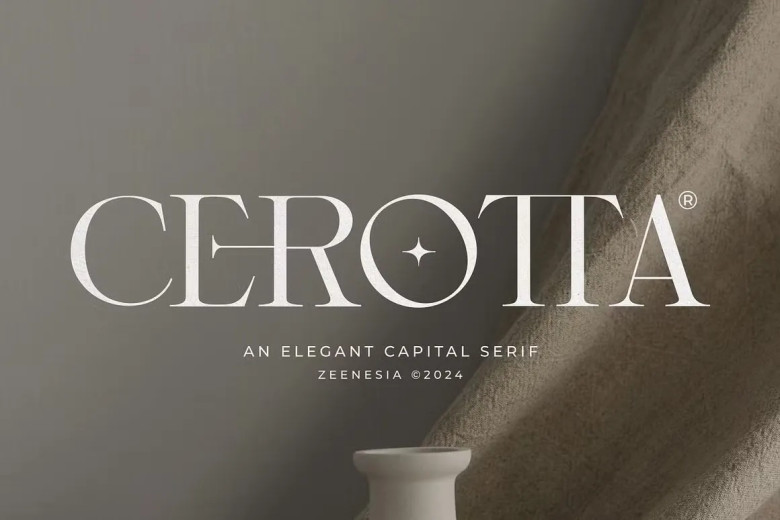
Cerotta Font
Cerotta Font is a classic serif font with romantic overtones. I used natural ligatures to craft an elegant font that can add visual interest to invitations or posters; perfect for wedding invitations! Logotypes, branding products, greeting cards often utilize Cerotta using PUA as its encoder so as to quickly access all glyphs and Swashes!
Cerotta Serif Font